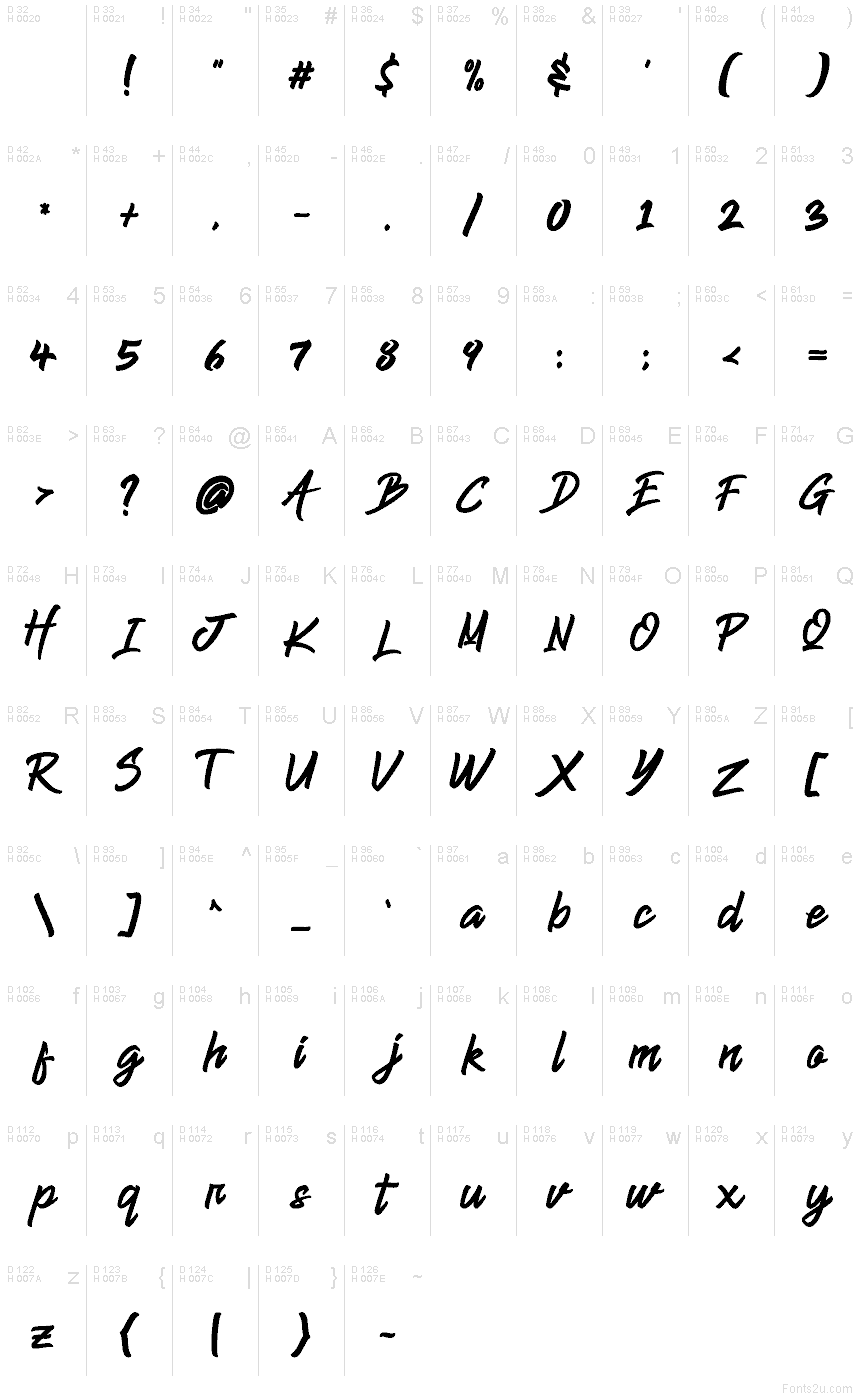
Jump Streets
Jump Streets font, developed by Krakenbox Std, is a graffiti-inspired display font with smooth and energetic characters. With an energetic connected flow, its letters showcase casual elegance and expressive movement. Jump streets hints towards subtle sophistication in whatever text it is used in.